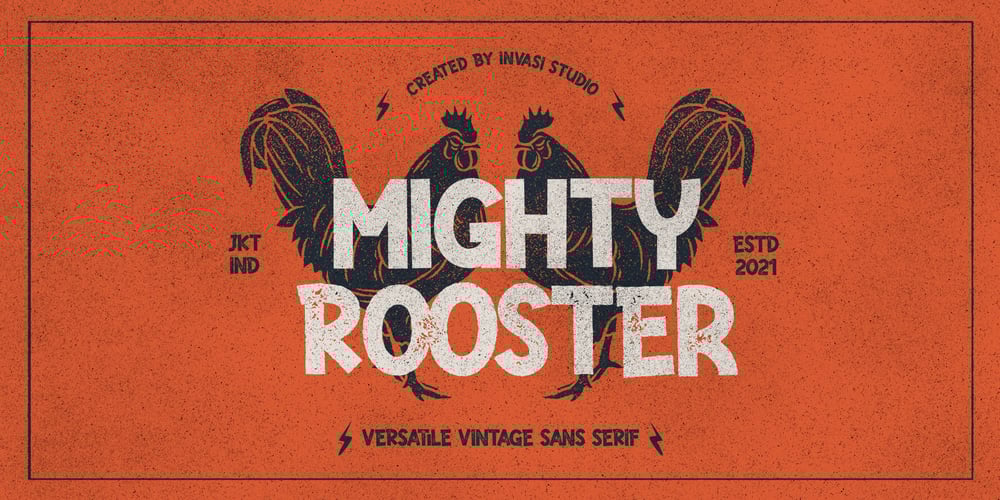
Mighty Rooster Font Family was designed by Gha Arizal and published by Invasi Studio. Mighty Rooster contains 2 styles and family package options. Introducing a versatile Vintage Sans Serif. Mighty Rooster includes 2 font files with Regular and Rough style. Mighty Rooster is a great font for achieving an authentic vintage aesthetic as seen in the display images or Body text project, it is perfect for headings, flyers, greeting cards, product packaging, book cover, printed quotes, logotype, apparel design, album covers.Mighty Rooster Features: Ligatures Alternate Multi-language Punctuation